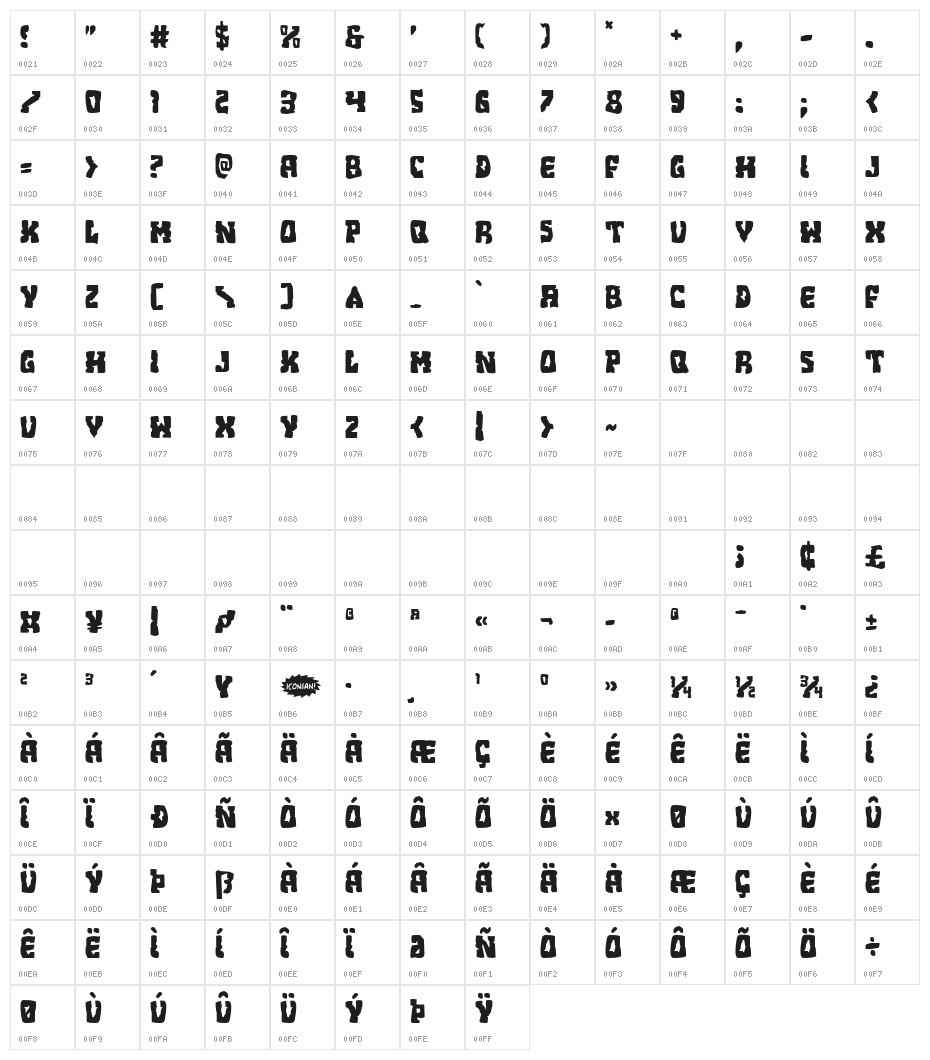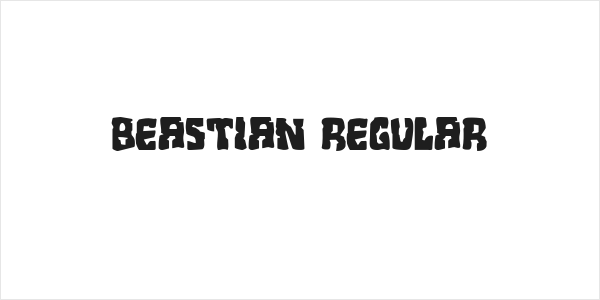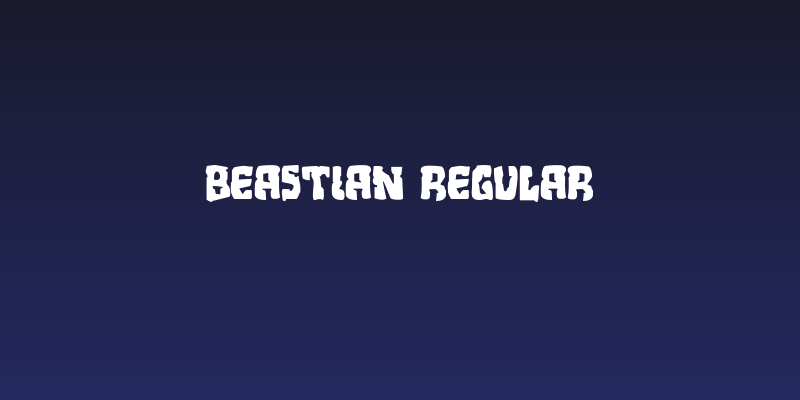
Beastian Regular Font
Beastian Regular Description
This font features a bold and rugged design, characterized by its thick, uneven strokes and a slightly distressed appearance. The letters have a strong presence, with a blocky and somewhat irregular shape that gives them a unique, handcrafted feel. The uppercase and lowercase letters maintain a consistent style, with the numbers and special characters following suit. This font's boldness and distinctive style make it stand out, while its rough edges add a touch of personality and charm. It's perfect for projects that require a strong visual impact and a touch of creativity.
| Proposed Projects | Ideal for posters, logos, branding, and any design needing a bold, eye-catching typeface. |